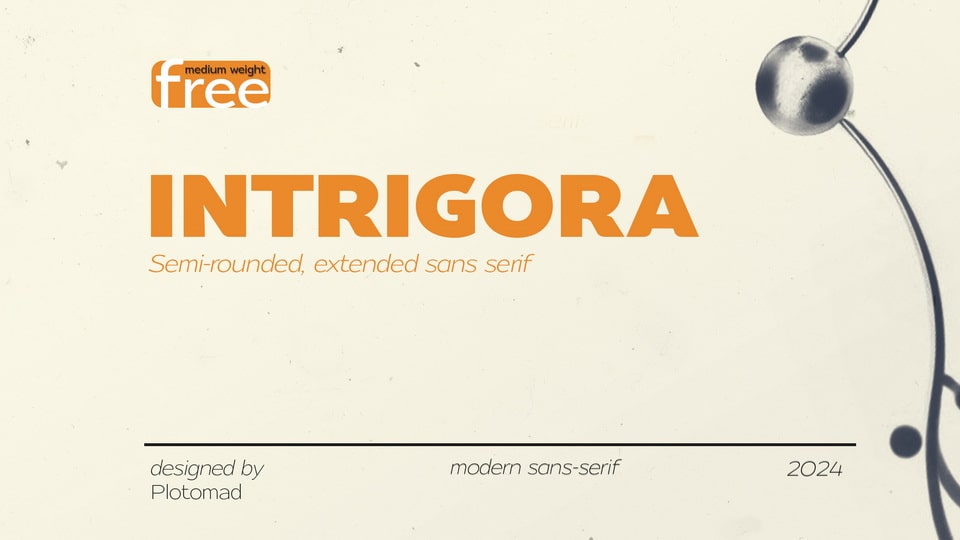
Download Intrigora font, a sans serif typeface that captures typographic modernity, blending sleek contemporary design with the comforting warmth of rounded type.
Designer: Aleksey Ryabov